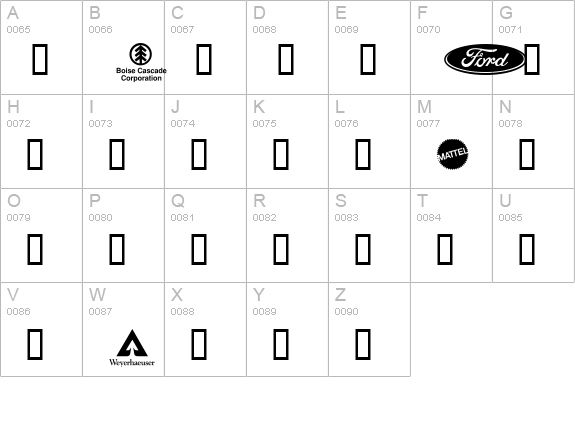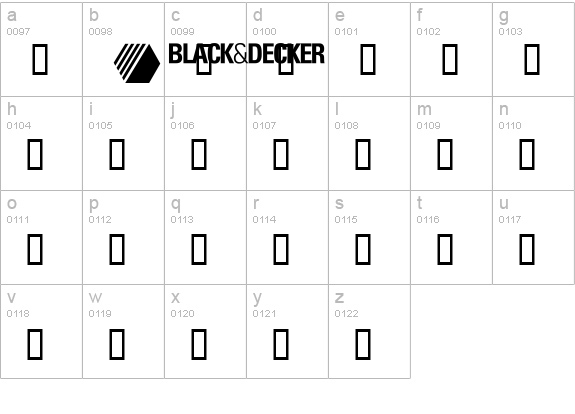
Logos Manufacturing font is a modern and versatile typeface that is perfect for all your branding and manufacturing needs. With its clean lines and bold strokes, this font exudes professionalism and reliability. Whether you are creating logos, product labels, or promotional materials, Logos Manufacturing font will elevate your designs to the next level. The best part? Logos Manufacturing font is completely free to download at FontsMarket.com. Yes, you read that right - you can access this high-quality font at no cost, making it an ideal choice for budget-conscious designers and businesses looking to enhance their visual identity. Don't miss out on this opportunity to add Logos Manufacturing font to your font library. Download it today and start creating stunning designs that will leave a lasting impression on your audience.